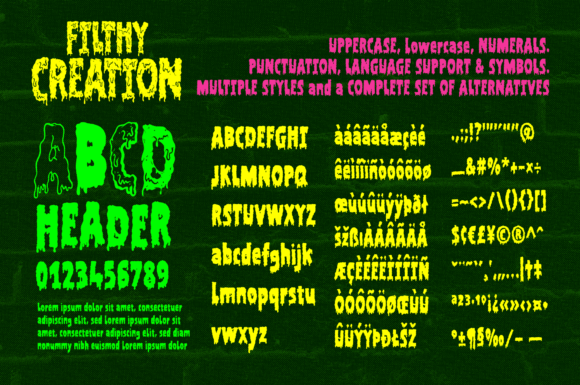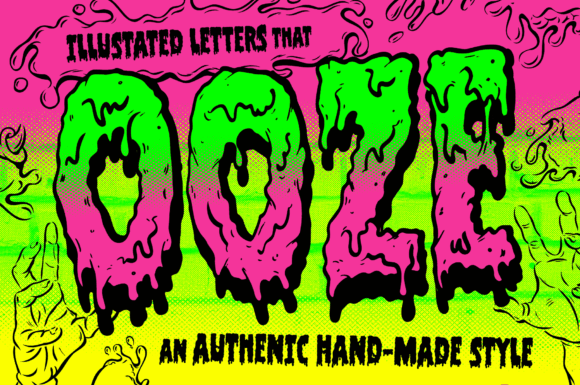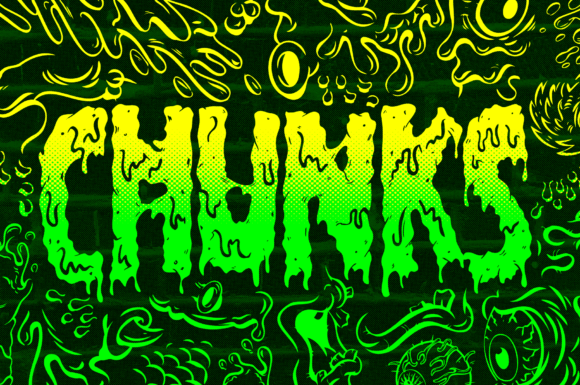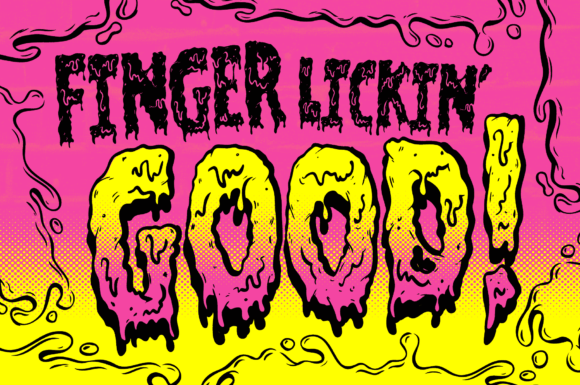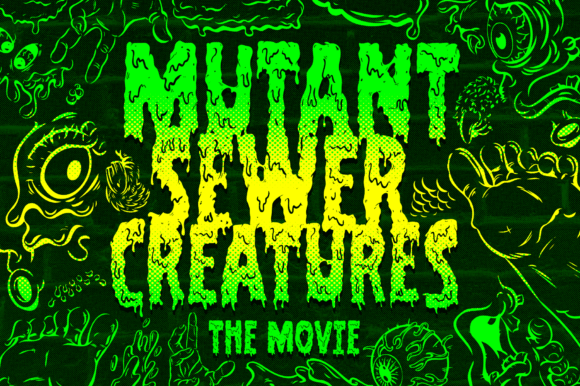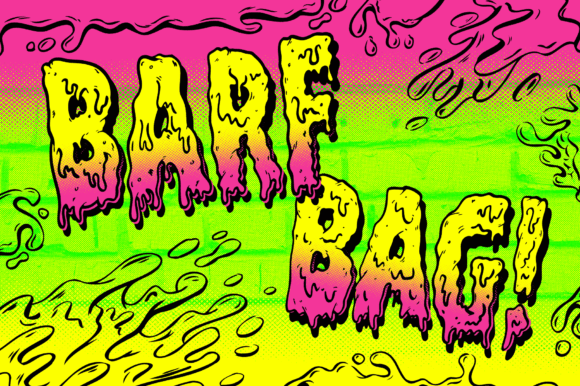
When Your Design Needs a Dose of Gross-Out Goodness
Have you ever stared at a blank canvas, itching to create something that screams “I’m a designer who’s not afraid to get a little messy”? That’s exactly the moment when the Filthy Creation Font kicks in, unleashing a wave of outrageously cartoonish slime fonts that’ll leave your audience giggling and squirming in delight.
This delightfully disgusting font pack offers designers a treasure trove of five hand-drawn styles that are reminiscent of the best in vintage horror comics, 80s trading cards, gross-out movies, paperbacks, and Saturday morning cartoons. Whether you’re crafting a title for a horror movie, designing a logo for a weird and wonderful brand, or simply looking to add some laughs to your next project, the Filthy Creation Font is your go-to companion for creating gory, disgusting, and slimy-looking masterpieces.
Filthy Creation Font Key Features
- Unique Characteristics: Distressed, grungy, and hand-drawn appearance with a mix of bold and irregular lines, ideal for use in posters, flyers, and other eye-catching materials
Designer Review: Filthy Creation Font
Overall, I think the Filthy Creation Font is an interesting addition to any designer’s toolkit. ✨ It’s a bold, edgy font that’s perfect for adding a touch of grunge or industrial flair to your designs. The font has a great, worn-in feel to it, like it’s been through the wringer and come out the other side.
The Filthy Creation Font is also highly versatile, and works well in a variety of contexts, from logos and branding to editorial and display type. ✨ It’s a great choice for designers who want to add some visual interest to their work without going over the top.
- Unique, bold design that adds a touch of grunge or industrial flair
- Highly versatile, works well in a variety of contexts
- Great, worn-in feel that adds depth and interest
- May be too bold or overbearing for some designs
- Not suitable for all types of projects, particularly those that require a more elegant or refined look
- Some characters may be difficult to read at small sizes
Overall, I think the Filthy Creation Font is a great choice for designers who want to add a touch of edge to their work. While it may have some limitations, it’s a bold and versatile font that’s sure to make a statement.
Filthy Creation Font is ideal for creating bold, edgy, and attention-grabbing designs. Use it for:
– Rock music-inspired designs
– Edgy fashion branding
– Grunge-inspired graphics
– Distressed or vintage-inspired designs